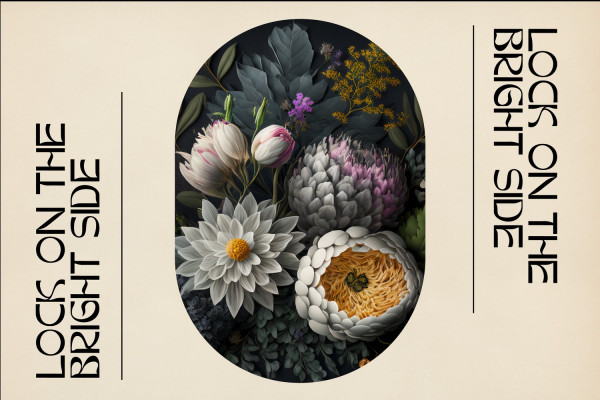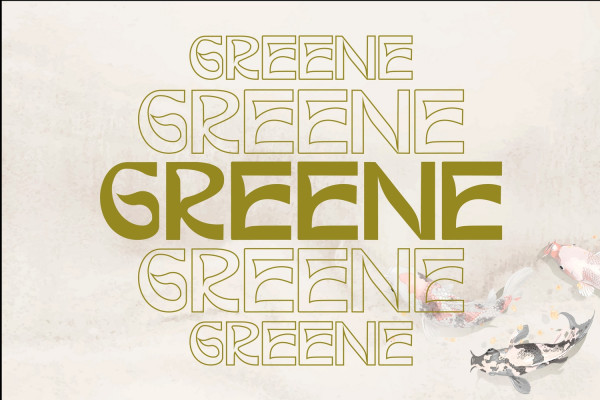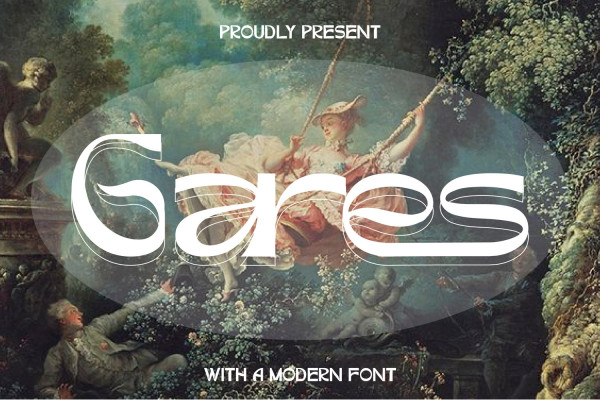
Gares Font
Gares Font – Modern Sans Font – is a modern display sans font, simplistic, high-contrast sans that is at home in high-end fashion and cultural environments that you can explore and combine. Use this display font to add that special retro touch to any design idea you can think of!. Masterfully designed to become a true favorite, this font has the potential to bring each of your creative ideas to the highest level!
Gares font, built with OpenType features and includes 100 ligatures, substitutions, numbers, punctuation and it also supports other languages.